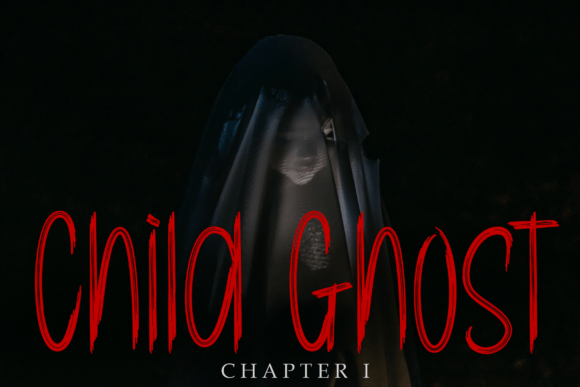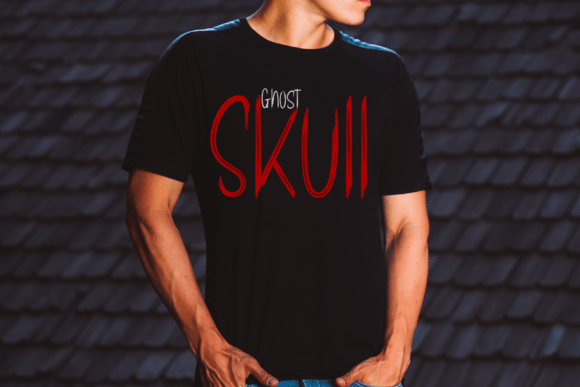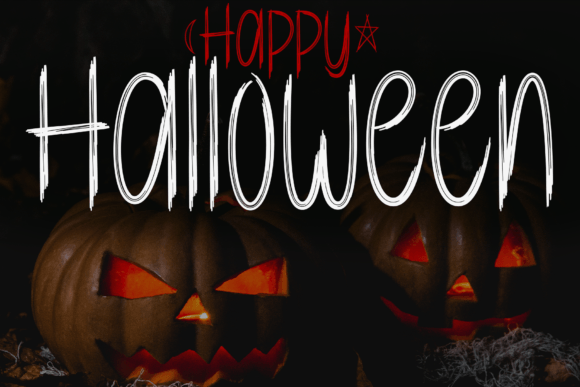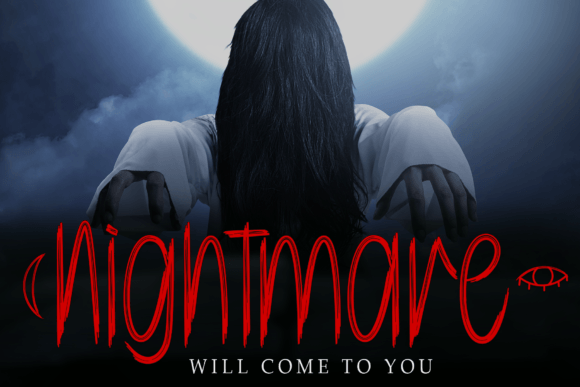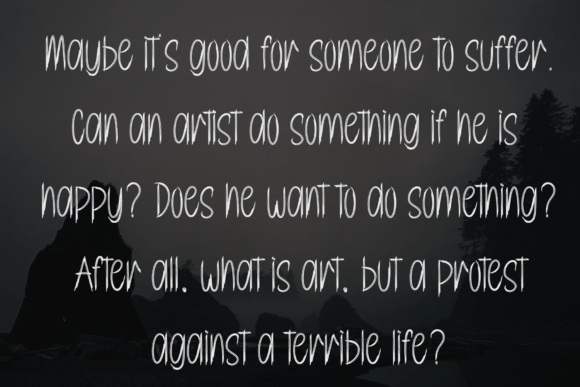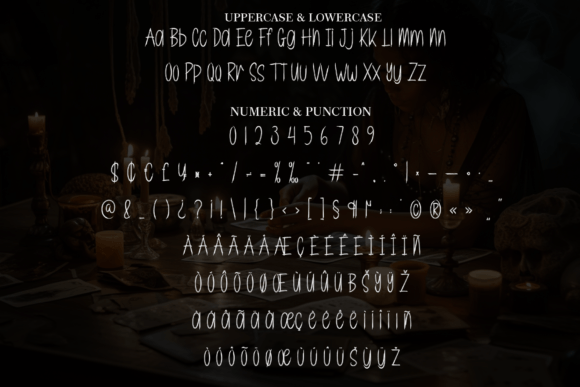
Introduction to Mistycal Font
Mistycal is a cool and slightly scary handwritten font.
Add it to your horror-themed projects and you will be amazed by the generated outcome .
Key Features of Mistycal Font
Why Choose Mistycal Font?
Mistycal Font offers exceptional quality and versatility, making it a valuable addition to your design toolkit. Whether you’re creating for personal projects or commercial use, Mistycal Font delivers professional results.